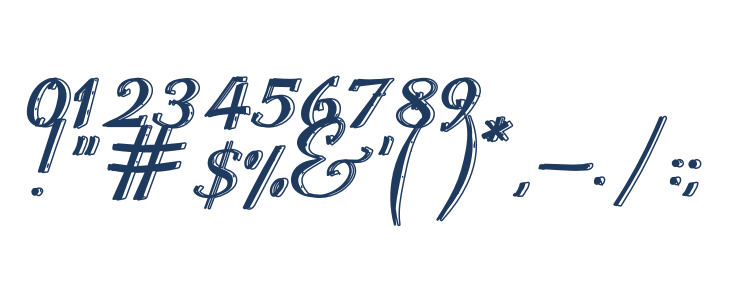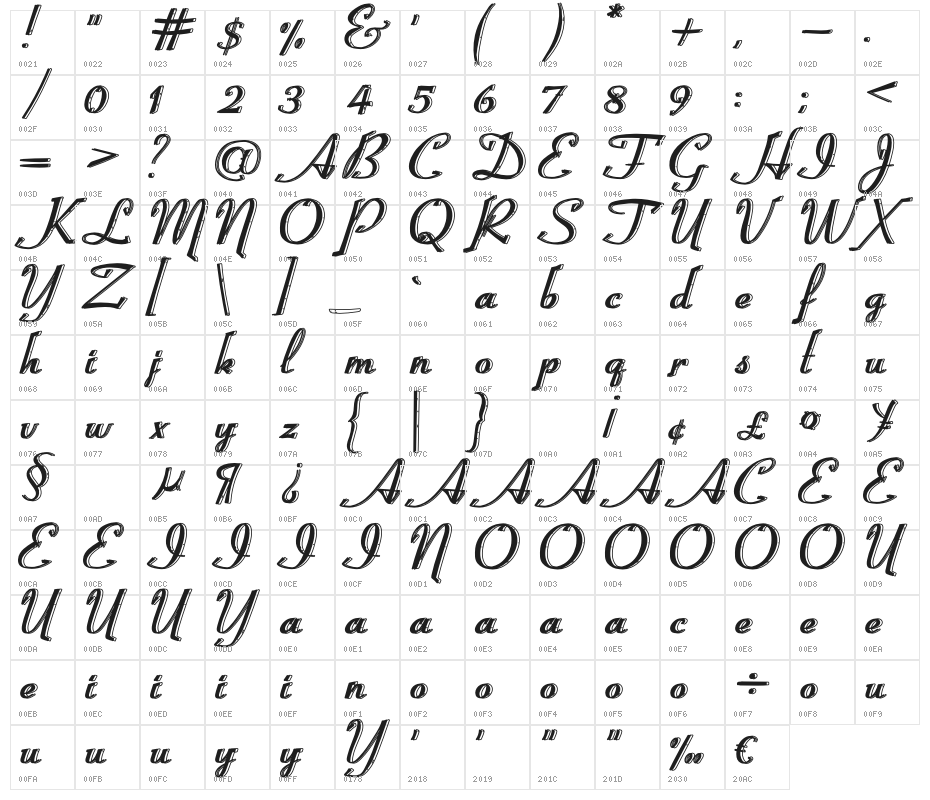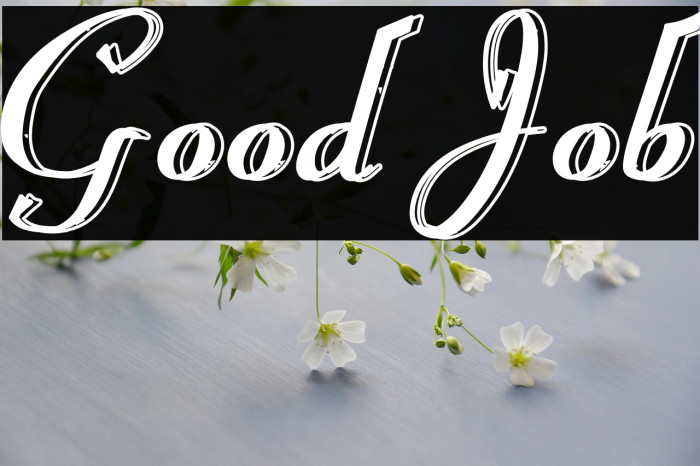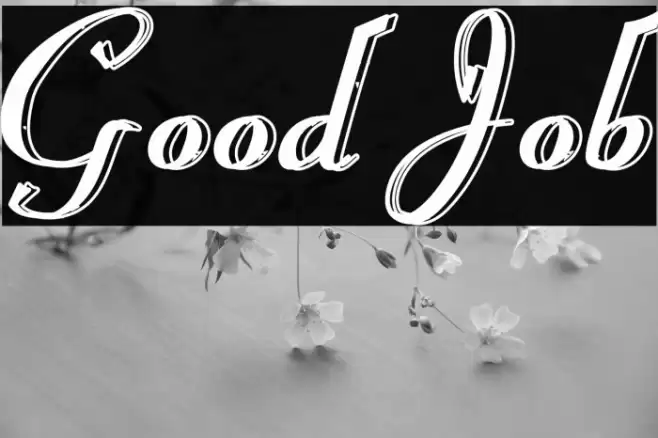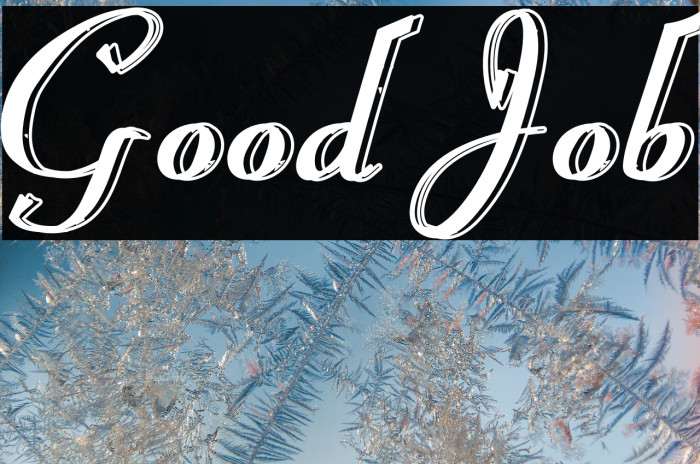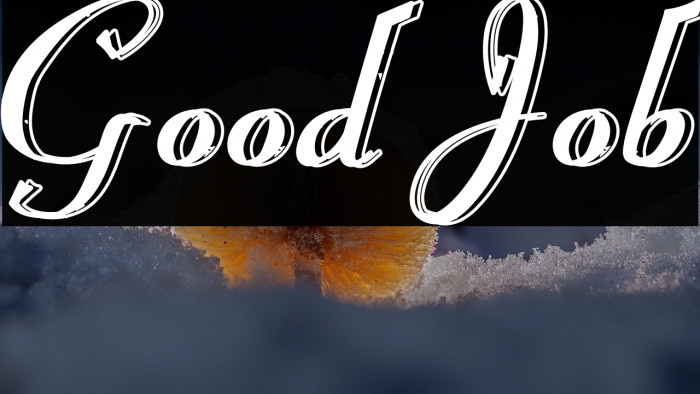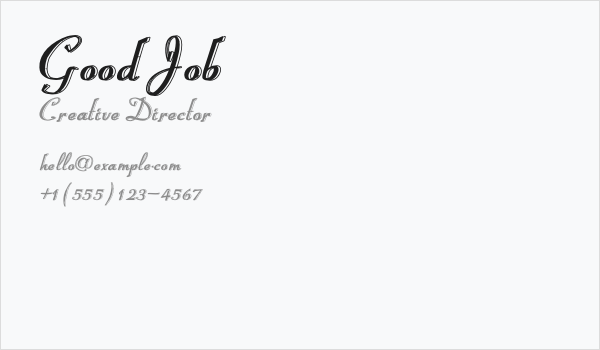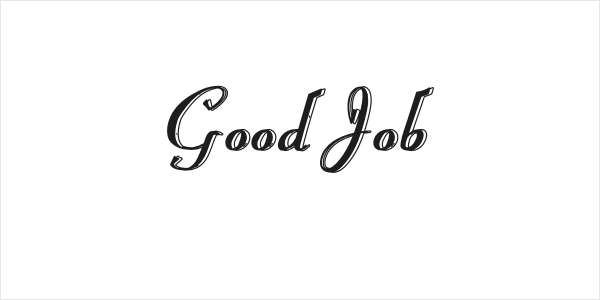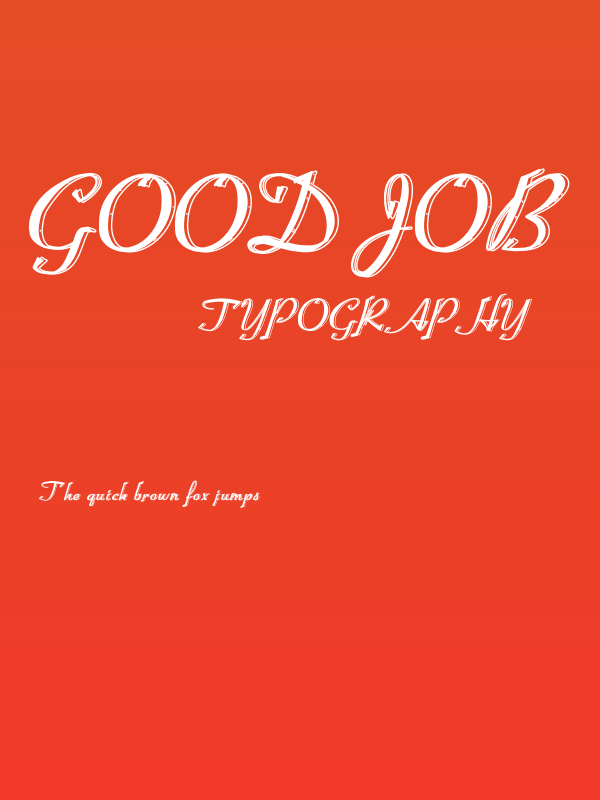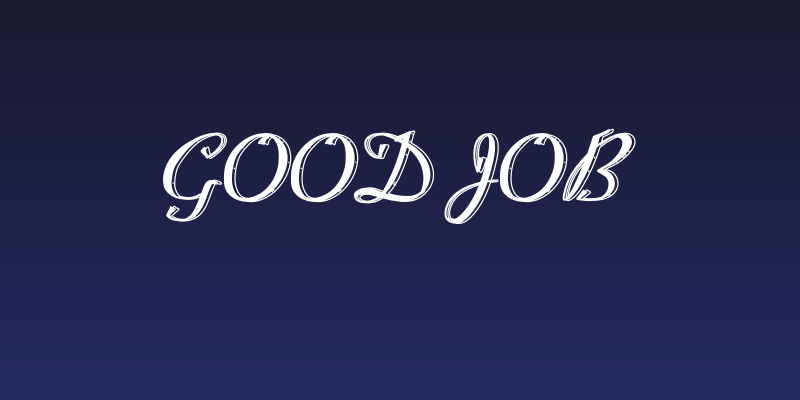
Good Job Font
Good Job Description
This font features a dynamic and energetic script style, characterized by its bold and flowing letterforms. The uppercase letters exhibit a sense of movement with their slightly slanted orientation and intricate detailing, while the lowercase letters maintain a cohesive and fluid appearance. The numerals are equally expressive, complementing the overall aesthetic with their bold strokes and distinctive curves. Special characters are designed with the same attention to detail, ensuring consistency across all glyphs. The font's high contrast between thick and thin strokes adds to its dramatic and eye-catching appeal, making it suitable for projects that require a touch of elegance and flair.